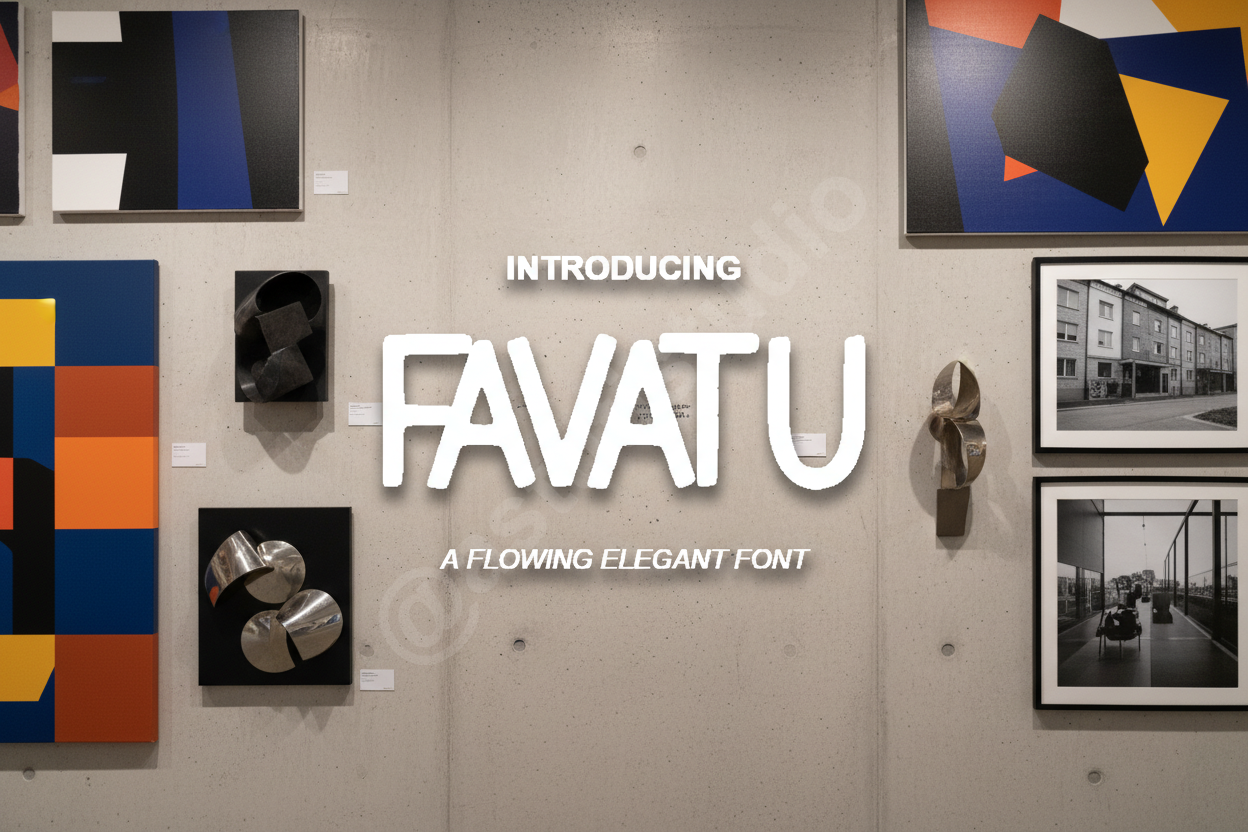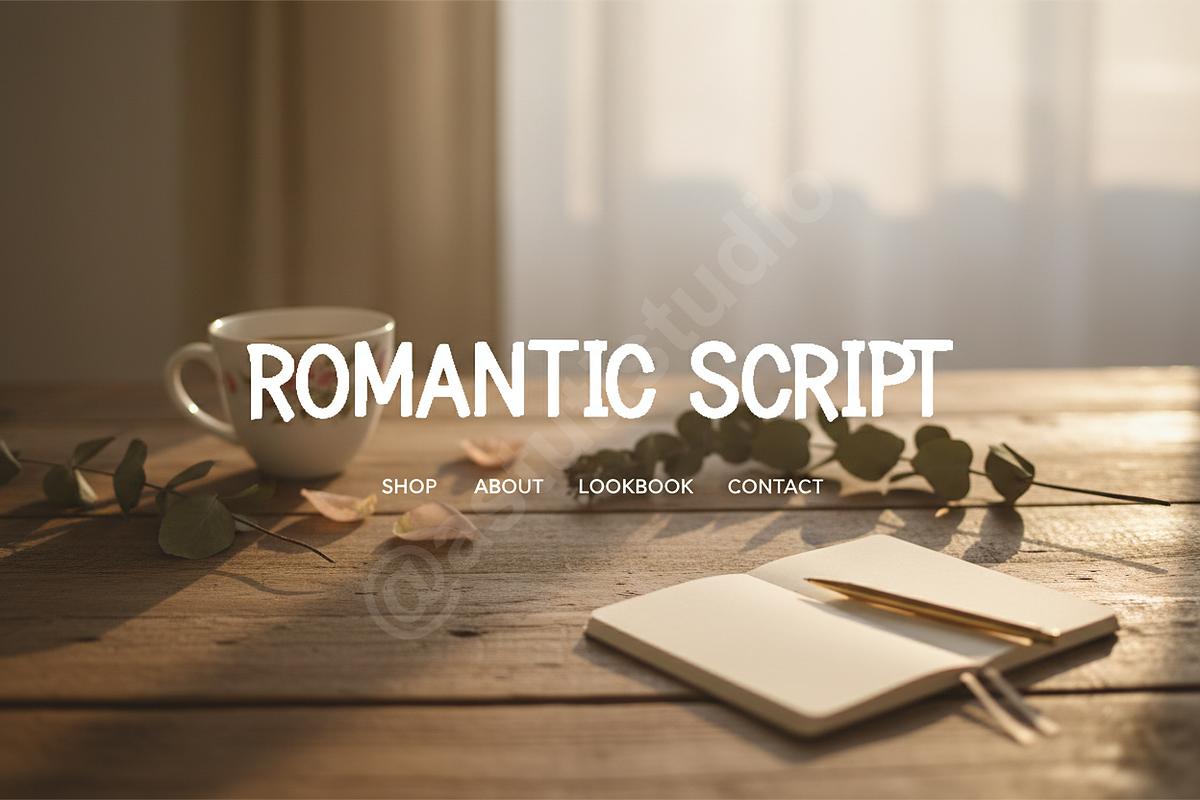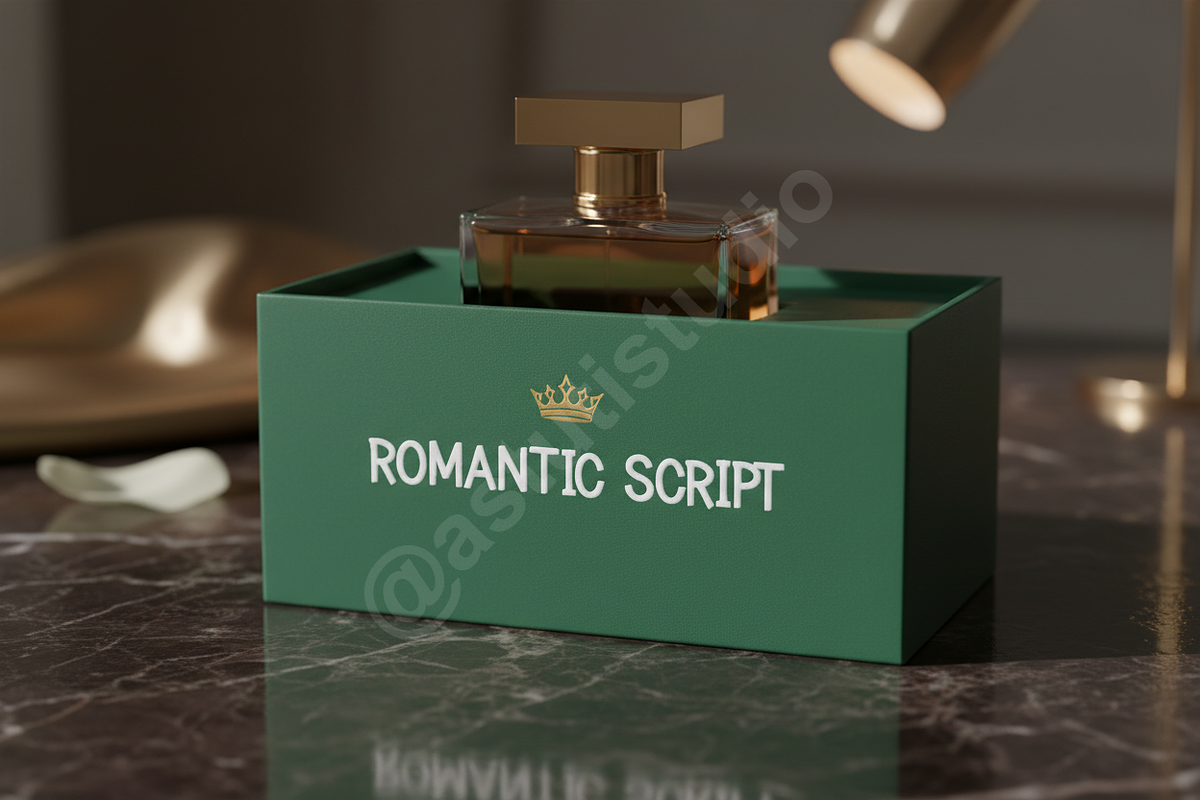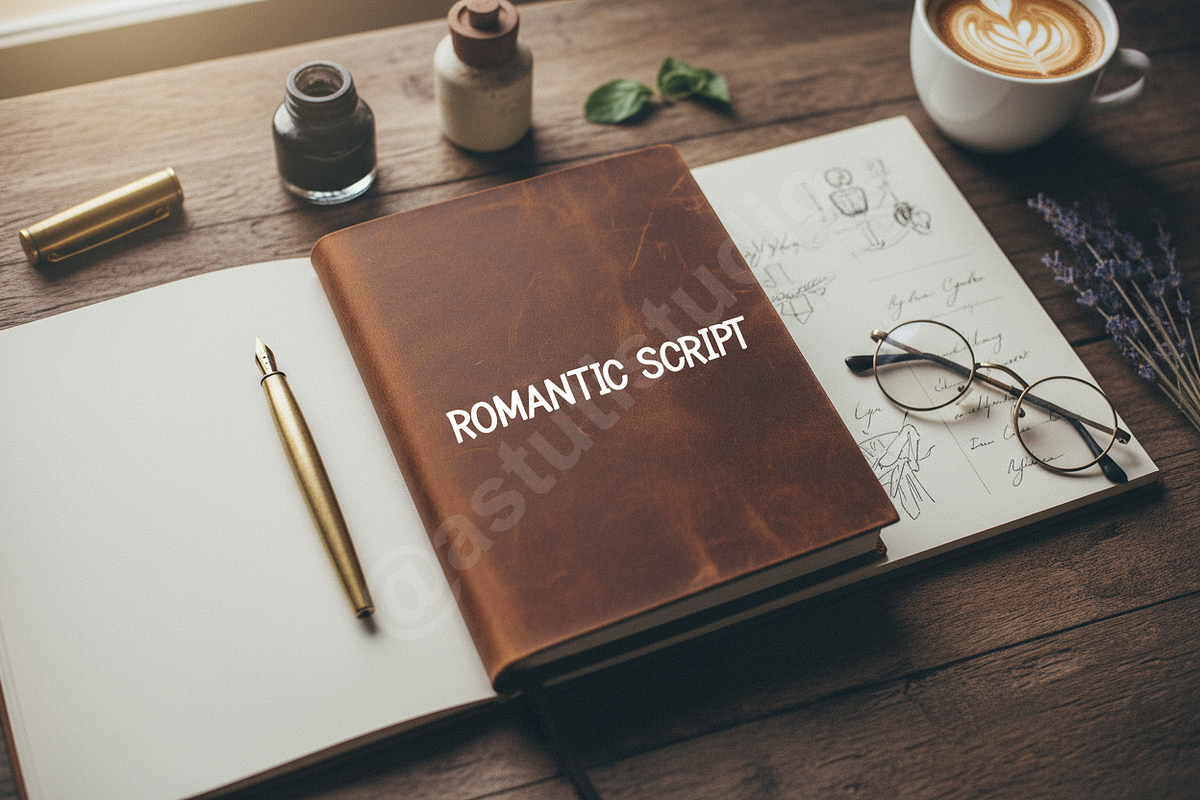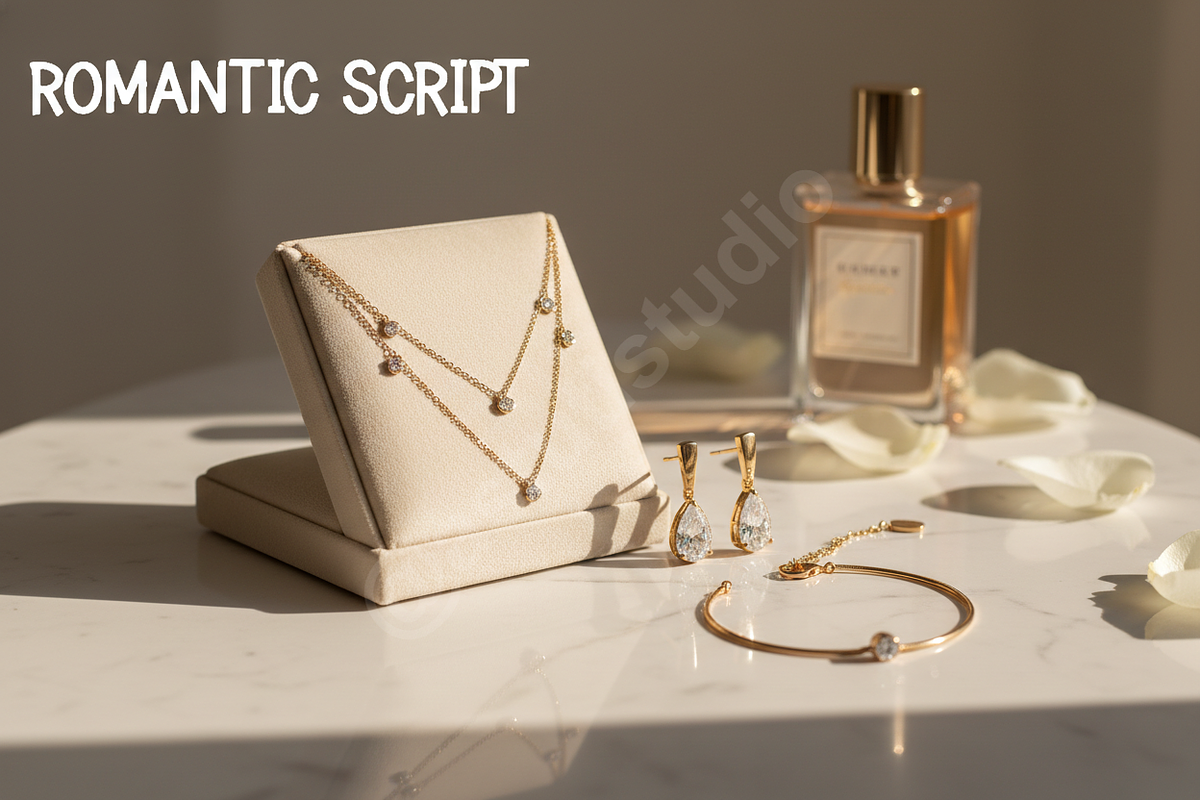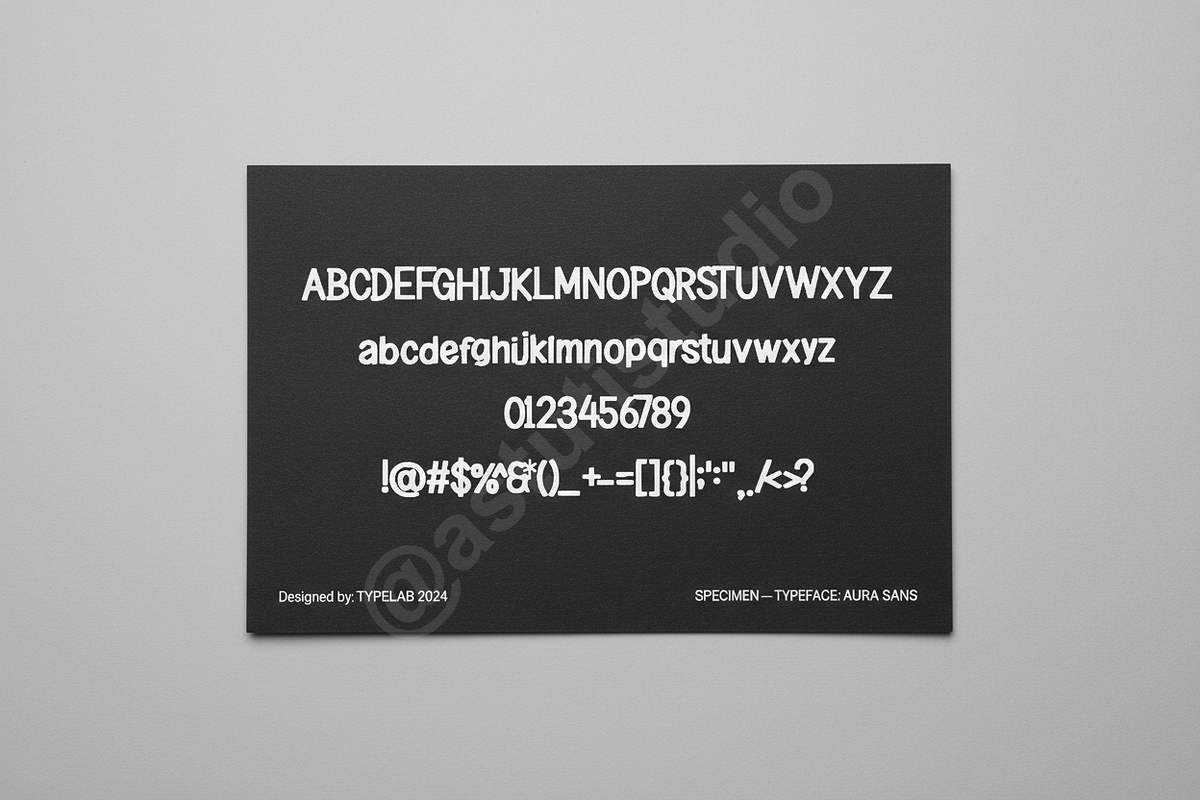
Favatu — Elegant Display Typeface fo
Introducing Favatu, a premium display typeface meticulously crafted for the discerning creative. Favatu embodies a sophisticated elegance, making it the quintessential choice for luxury branding, high-end editorial layouts, and captivating social media presence. Its unique letterforms blend timeless appeal with a contemporary edge, ensuring your designs resonate with refinement and distinction.
- Exquisite letterforms with balanced proportions for optimal readability and impact.
- Versatile application across print and digital media, from large headlines to subtle details.
- A harmonious blend of classic elegance and modern minimalism.
- Designed for projects requiring an elevated aesthetic and professional finish.
- Full character set: Uppercase, Lowercase, Numbers, Punctuation.
- Extensive multilingual support for a global reach.